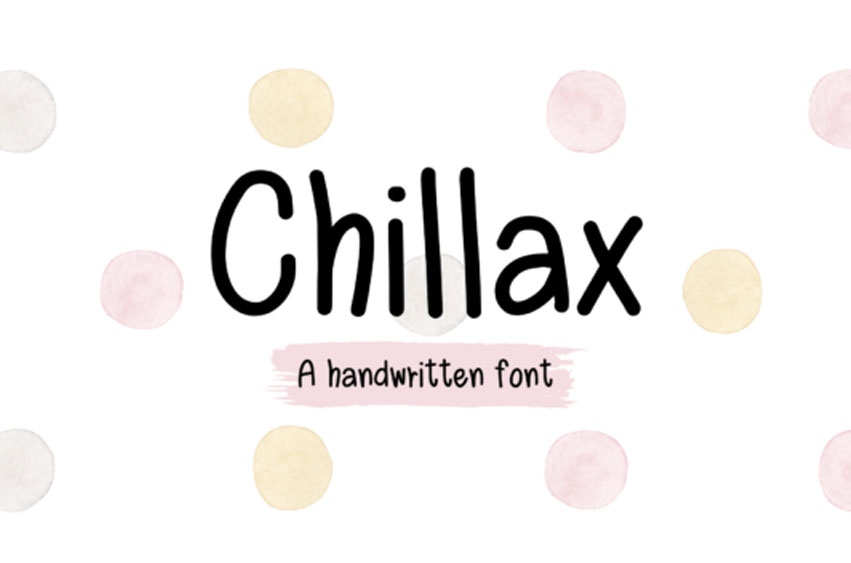
Chillax Font is a neat and cute handwritten font.
It is perfectly suitable for digital prints, social media, cards, invitations, planners, journals, and a variety of other design projects.